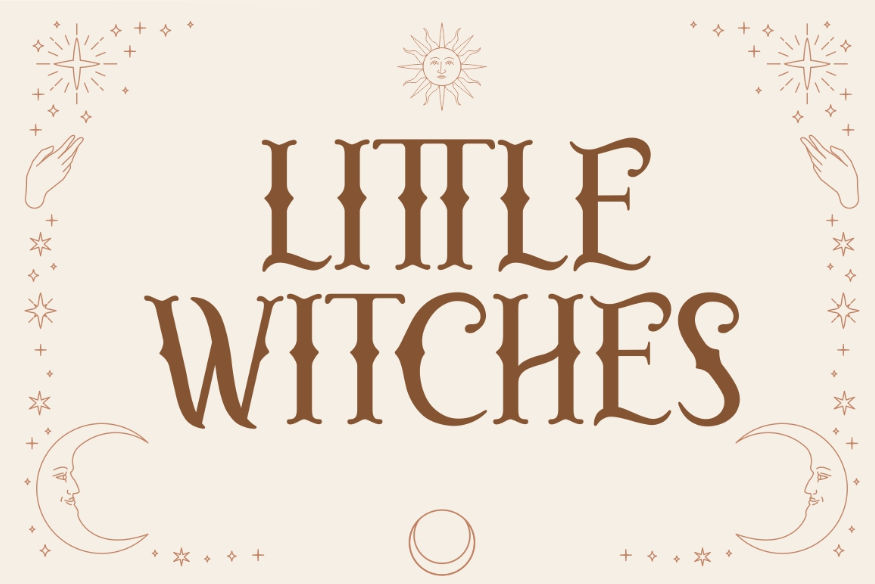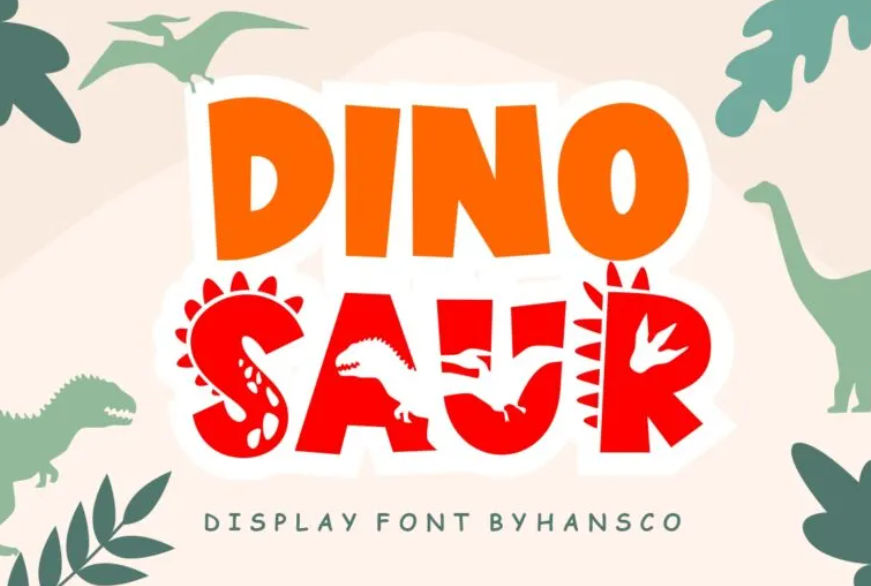
Best Font for a Book: Tips and Recommendations
Choosing the best font for a book helps readers absorb the content more easily, stay focused, and better understand the message the author wants to convey.
On the other hand, selecting the wrong font can reduce reading interest, even when the content itself is strong. That is the reason why font selection should not be based solely on visual appeal but also on readability, reader comfort, and the intended target audience.
• How to choose the best font for a book is understanding the theme, target audience, and readability needs.
• Playful fonts are suitable for children’s books, while elegant fonts work well for adult novels.
• Fonts that feature long swashes are well-suited for poetry books, while clean and simple fonts are more appropriate for non-fiction titles.
How to Choose a Good Font for a Book
Here is a guide you can follow to choose the right font for a book.
1. Understanding the Book’s Theme
If you are a graphic designer, understanding the book’s theme does not require reading the entire manuscript from start to finish. Reviewing the synopsis is usually enough to grasp the overall concept and determine an appropriate visual direction.
For example, thriller stories often convey tension, so sharp and bold typefaces are a suitable choice, while romance novels feel more engaging when paired with flowing fonts.
2. Defining the Target Audience
Beyond the theme, the target audience plays a crucial role in choosing a book font. Fonts used in children’s books are naturally different from those used in academic books or adult novels.
According to PaperTrue, non-fiction novels with a more formal tone are well-suited to typefaces such as Times New Roman. Meanwhile, children’s books with a more casual and playful tone can effectively use fonts like Comic Sans.
3. Easy to Read
One of the main challenges in choosing the best font for a book is ensuring high readability so readers can stay comfortable during long reading sessions. Readability is influenced by several factors, including the spacing between letters, how easily each letter can be distinguished, and the height and thickness of the characters.
4. Considering the Publishing Format
The format of the book media also needs to be considered before deciding on a font, because fonts that appear on paper may look different on a digital screen. Ideally, you should test your font choices on both printed pages and digital mockups to evaluate their readability and ensure a consistently comfortable reading experience.
5. Avoid Using Too Many Fonts
Rather than looking creative or aesthetic, using too many fonts often results in a cluttered and unfocused appearance. Readers may feel distracted as their eyes constantly adjust to different type styles. For this reason, it is safest to limit font usage to one font family, such as serif or sans-serif, to maintain visual consistency and clarity.
20 Best Fonts for Books of Various Genres
Here are the recommendations for the best font for a book from different genres.
Children’s Books
1. Little Witches
This font features bold letterforms with jagged details in the middle of each character, evoking a fairytale atmosphere and a magical world. It is well-suited for children’s books with fantasy themes.
2. Dino Saur
This font comes with thick, rounded letterforms and dinosaur illustrations integrated into each character. The overall tone feels cheerful and adventurous for children’s book covers about dinosaurs or prehistoric life.
3. Mermaid
With bold, rounded letterforms decorated with mermaid scales, this font brings to mind an imaginative underwater world. It works perfectly for children’s books that explore ocean themes and marine life.
4. Tropi Land
This font features wavy letterforms that create a relaxed and playful impression. It is a great choice for lighthearted children’s books or illustrated storybooks.
Adult Novels
5. Lates Perfectly
This font features subtle serif strokes at the ends of each character, creating an elegant, classic, and refined impression. It is well-suited for adult novels that require high readability, especially for long-form text.
6. Sonia
With smooth letter curves and an elegant tone, this font works well for chapter titles or book covers.
7. Evenings
This font presents a clean, modern serif character that conveys a calm and composed atmosphere for adult novels that explore themes of life or emotional drama.
8. Bandits
This is a decorative font with curved swashes with a strong retro aura for adult novel covers with themes of mystery or power struggles.